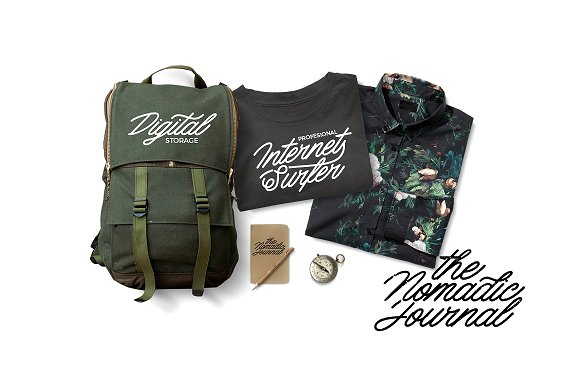
Lackers Script Font
Introducing Lackers! A vintage styles monoline font with a natural flow. It’s the perfect choice for personal branding projects, handwritten quotes, homeware designs, product packaging or simply as a modern & stylish text overlay to any background image.
Lackers is available in three styles script Regular, Bold, and Rough and two styles on Sans. Lackers also comes with uppercase, lowercase, numerals, punctuations in script and sans version and so many variations on each characters include opentype alternates, common ligatures and also additional swash to let you customise your designs.